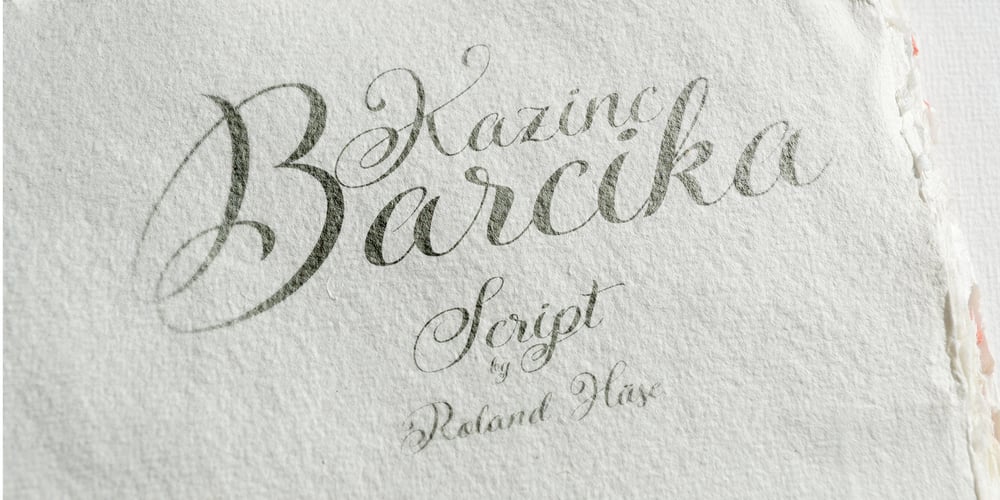
Kazincbarcika Script
Kazincbarcika Script font
Kazincbarcika Script Font Family was designed by Roland Hüse and published by Roland Hüse Design. Kazincbarcika Script contains 1 styles and family package options. An elegant calligraphy script. I named it after my hometown, Kazincbarcika. I think it looks interesting written down.The first letter I designed was the initial “K” and I have built the whole set around that.